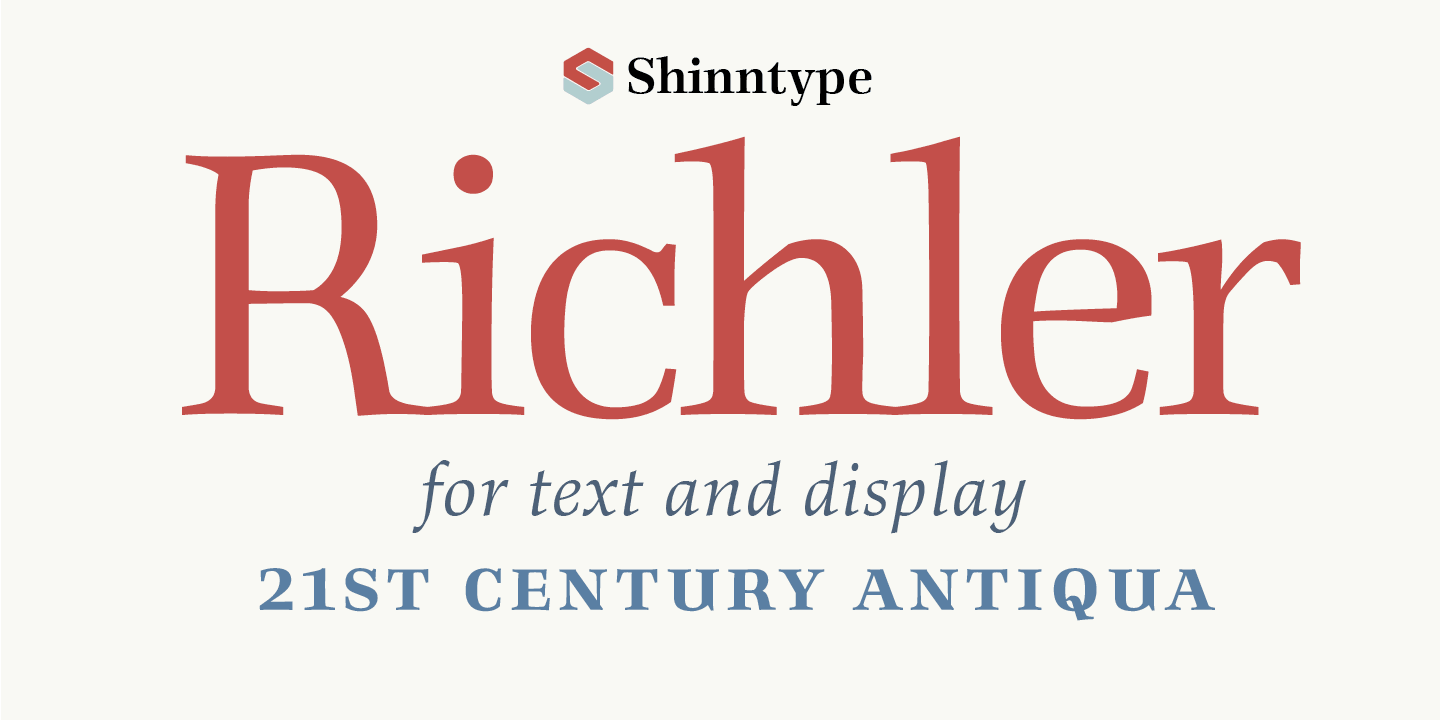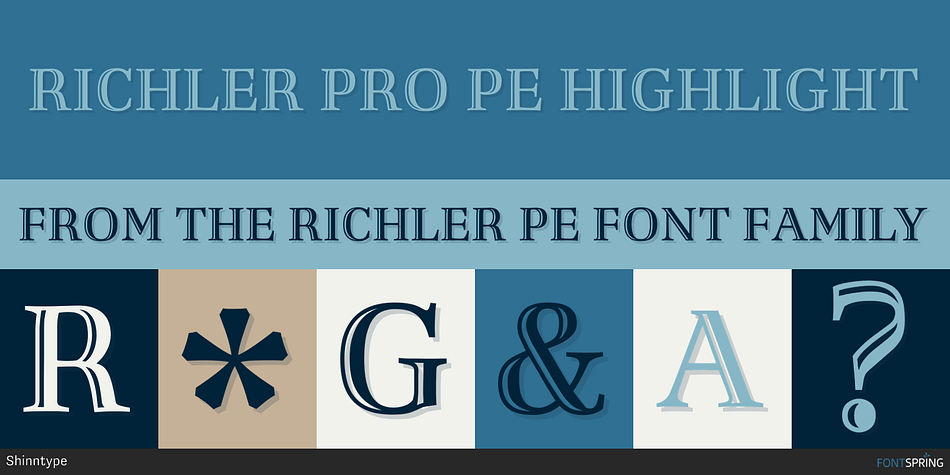
Richler PE is a serif and display serif font family. This typeface has ten styles and was published by Shinntype.
Richler Pro PE Highlight
An open, evenly spaced book face designed for quality headlines and enhanced readability in text. This version includes Greek and Cyrillic characters, in addition to Latin-based languages.